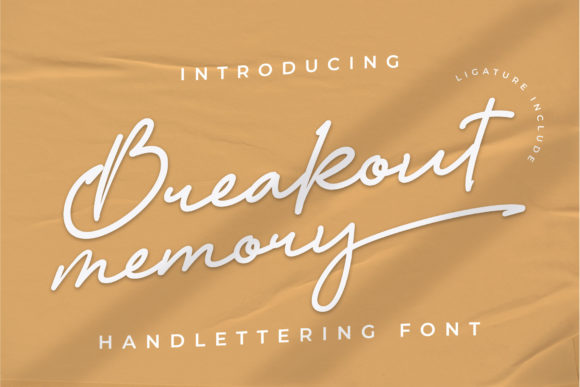
The Breakout Memory Font: A Stylish and Delicate Script for Your Designs
Have you ever been in the middle of a design project, and suddenly, you just can’t seem to find the right font? I know I have. It was a few months ago when I was working on a branding project for a new coffee shop. My client wanted a font that was both elegant and playful, but I just couldn’t seem to find the perfect fit. That’s when I stumbled upon the Breakout Memory font, and let me tell you, it was love at first sight! 💕
A Personal Review: What I Love About Breakout Memory
So, what makes Breakout Memory so special? Here are a few things that I absolutely love about this font:
- ✨ Beautifully crafted letters: Each letter in Breakout Memory is carefully designed to be both stylish and delicate. The font has a unique feel that sets it apart from other script fonts.
- ✅ Highly versatile: Whether you’re working on a branding project, a wedding invitation, or a social media graphic, Breakout Memory is a great choice. It’s elegant enough for formal designs, but also playful enough for more casual projects.
- 💫 Easy to read: Despite its delicate nature, Breakout Memory is surprisingly easy to read, even at smaller font sizes. This makes it perfect for designs that require a lot of text.
While Breakout Memory is an amazing font, it’s not perfect. Here are a few things to keep in mind:
- 🤔 Limited use of bold weights: While Breakout Memory has a range of weights, the bold weights can be a bit overpowering. It’s best to use the lighter weights for body text and save the bold weights for headings.
- ⚠️ Some letters may require manual kerning: As with any script font, some letters may require manual kerning to look their best. This can be a bit time-consuming, but the end result is worth it.
The Designer Inspiration Behind Breakout Memory
Breakout Memory was designed by a team of designers who wanted to create a font that was both stylish and delicate. The font was inspired by the beauty of handwritten script and the elegance of traditional typography. The designers spent countless hours perfecting the font, making sure that each letter was both beautiful and functional.
| Font Name | Breakout Memory Font |
| Author | Nerdstudio |
| What is Breakout Memory? | Breakout Memory is a stylish and delicate script font that’s perfect for designs that require a lot of elegance and personality. |
| Is Breakout Memory easy to read? | Yes, Breakout Memory is surprisingly easy to read, even at smaller font sizes. |
| Does Breakout Memory have OpenType features? | Yes, Breakout Memory has a range of OpenType features, including glyphs and stylistic alternates. |